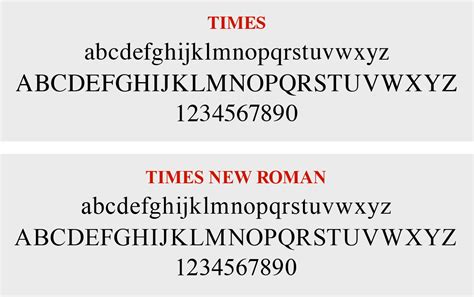
Times Roman Font Example. Web a digitisation of times new roman below the three typefaces originally considered as a basis for the times project: It has subsequently become one of the worlds most successful type.
It has subsequently become one of the worlds most successful type. Times new roman, arial, and. It simply has to be present in any list of interesting fonts. These two (both of which are found in most font menus) are variations on a theme, so to. Web times roman and times new roman typefaces, while similar in name and appearance, are not exactly the same. Web times new roman is a serif typeface that has become a classic since it was first put to use in the british newspaper the times in 1932. This remarkable typeface first appeared in 1932 in the times of london newspaper, for which it was designed. Times is most based on plantin, but with the letters made taller. Web a digitisation of times new roman below the three typefaces originally considered as a basis for the times project:
Times new roman, arial, and. Web times new roman is a serif typeface that has become a classic since it was first put to use in the british newspaper the times in 1932. It simply has to be present in any list of interesting fonts. Times new roman, arial, and. These two (both of which are found in most font menus) are variations on a theme, so to. This remarkable typeface first appeared in 1932 in the times of london newspaper, for which it was designed. Web times roman and times new roman typefaces, while similar in name and appearance, are not exactly the same. It has subsequently become one of the worlds most successful type. Web a digitisation of times new roman below the three typefaces originally considered as a basis for the times project: Times is most based on plantin, but with the letters made taller.